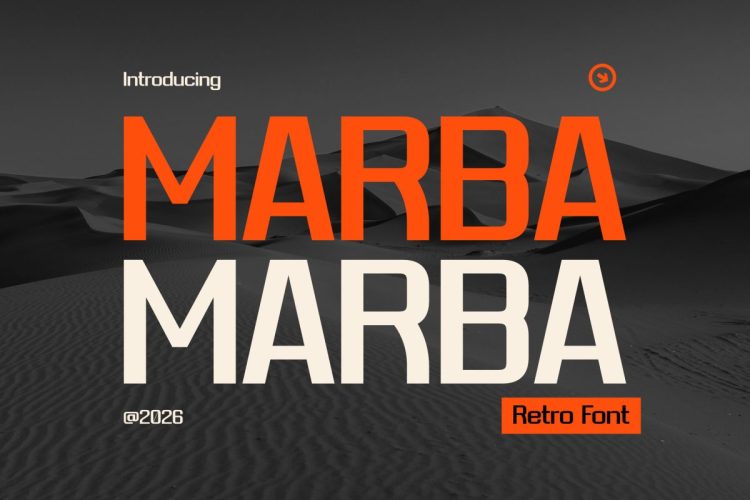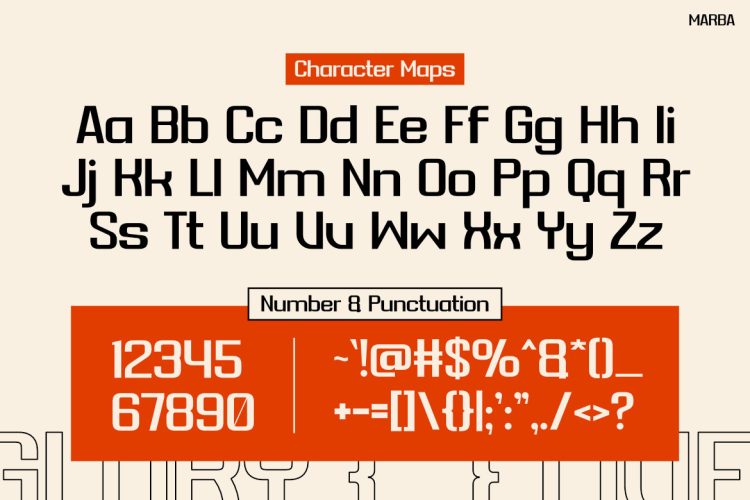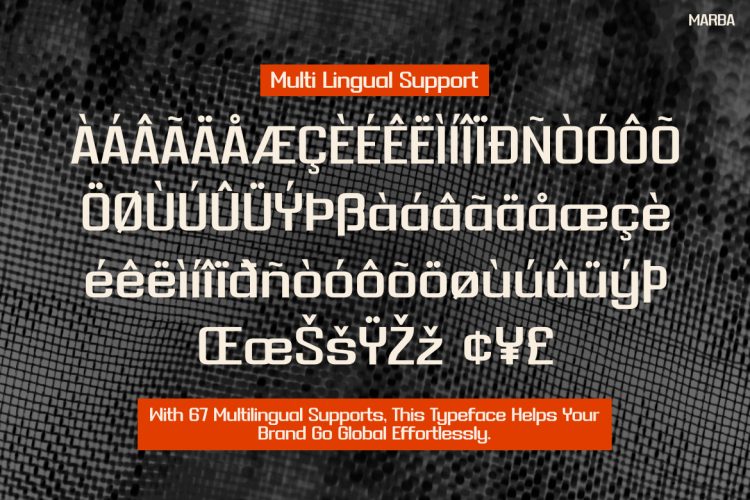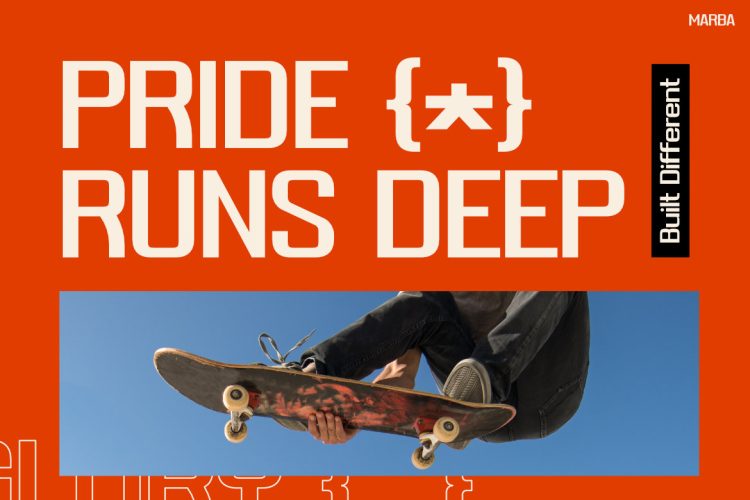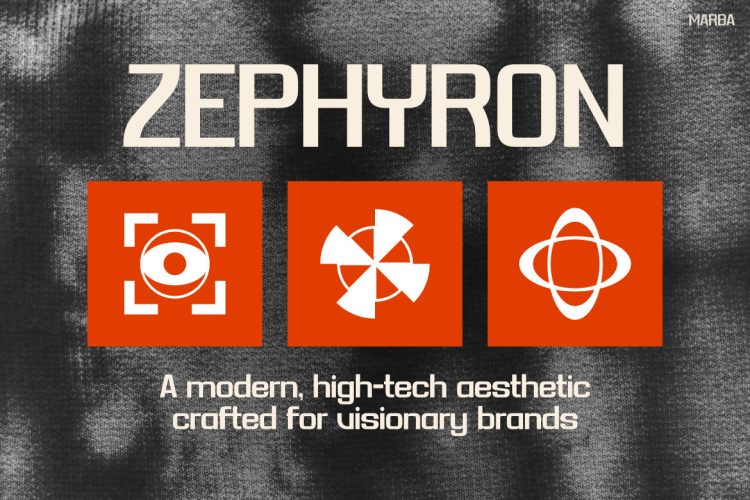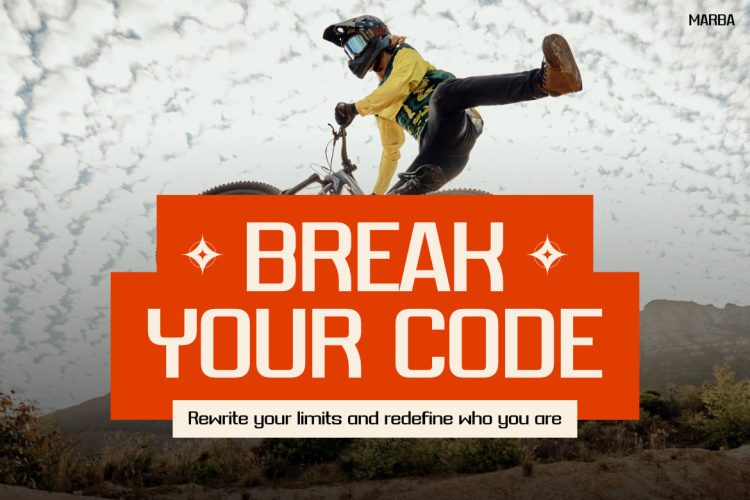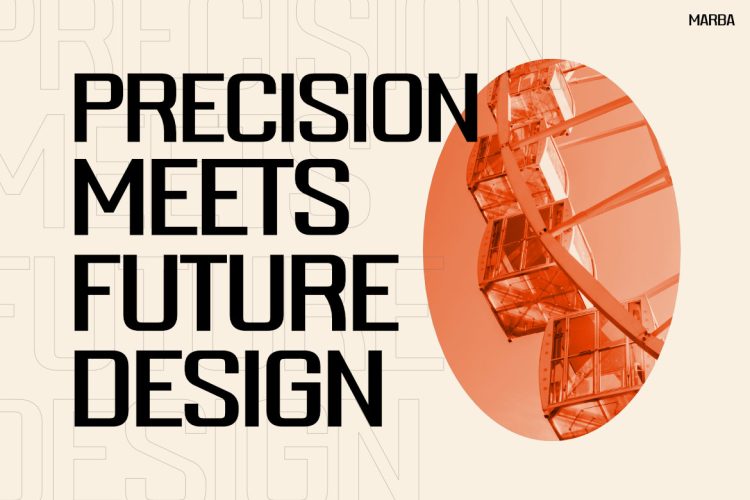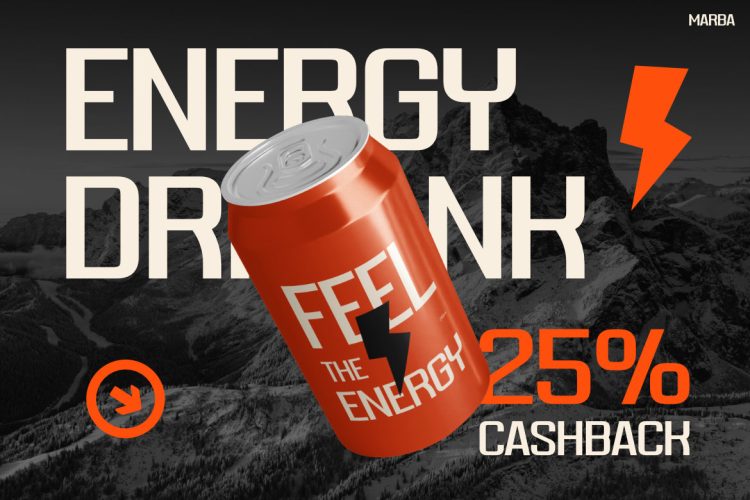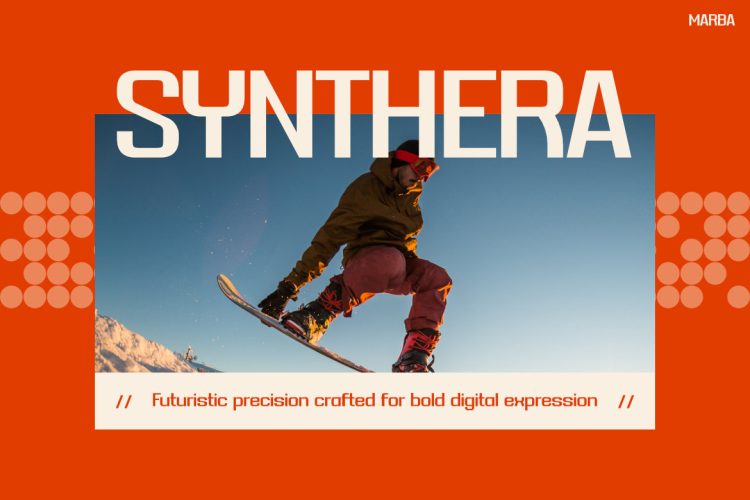
Retro Font MARBA โ Retro Power, Future Precision
Retro Font MARBA delivers a bold fusion of vintage attitude and futuristic sharpness, designed to command attention in modern visual landscapes. This typeface stands out with its strong geometric construction, compact letterforms, and confident stroke weight that instantly create impact. MARBA draws inspiration from retro industrial signage and high-tech branding, yet it refines those influences into a clean, structured, and highly usable display font. Its sharp angles, balanced spacing, and assertive proportions give every word a sense of precision and energy. As a result, headlines look powerful, layouts feel dynamic, and brand messages appear decisive and forward-thinking.
MARBA does not rely on decoration to make a statement. Instead, it uses bold structure and smart geometry to express strength and clarity. The uppercase-driven personality enhances its visual punch, while its clean cuts keep compositions modern and professional. Furthermore, MARBA supports 67 languages, allowing global brands to communicate consistently across markets without losing visual identity. Whether placed on posters, product packaging, digital banners, or editorial covers, MARBA maintains clarity and dominance across every medium.
Built for Impact and High-Performance Design
Retro Font MARBA shines in environments that demand strong visual hierarchy and unmistakable presence. Its solid forms create instant readability from a distance, which makes it ideal for headlines, branding, and promotional graphics. Moreover, the retro-futuristic tone bridges nostalgia and innovation, allowing designers to build identities that feel both familiar and cutting-edge. Because MARBA balances boldness with clean spacing, it keeps layouts sharp rather than cluttered. Therefore, it performs exceptionally well in tech branding, streetwear visuals, sports campaigns, gaming graphics, and product advertisements.
Retro Font MARBA Perfect for Who?
Retro Font MARBA fits tech startups, creative agencies, sports brands, gaming studios, streetwear labels, and digital product companies that want a strong, energetic identity. Additionally, graphic designers can use it for posters, event branding, social media campaigns, YouTube thumbnails, packaging systems, and high-impact presentations. Entrepreneurs and product creators who want their message to look sharp, modern, and confident will find MARBA a powerful typographic solution.
Make Your Message Stand Strong
Retro Font MARBA transforms simple words into bold statements filled with energy and authority. If you want a typeface that blends retro character with futuristic precisionโand supports global communicationโMARBA is the perfect choice. Upgrade your branding, sharpen your visuals, and let your typography project strength and confidence.